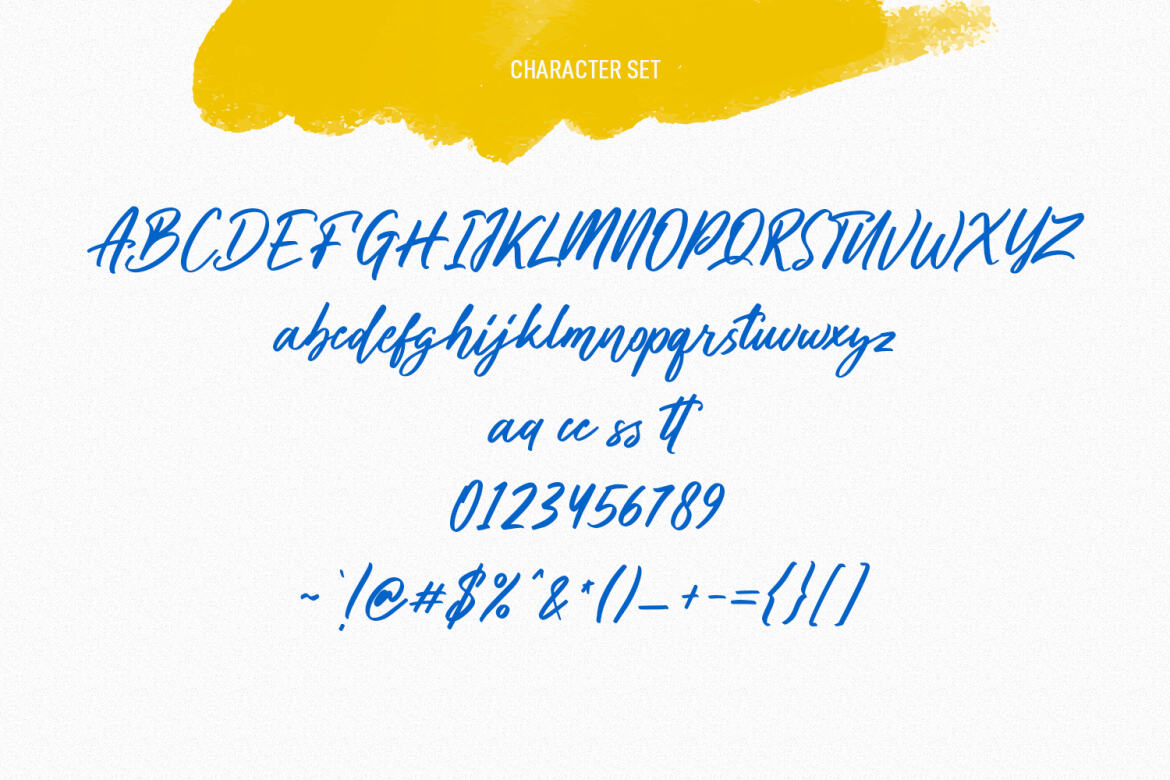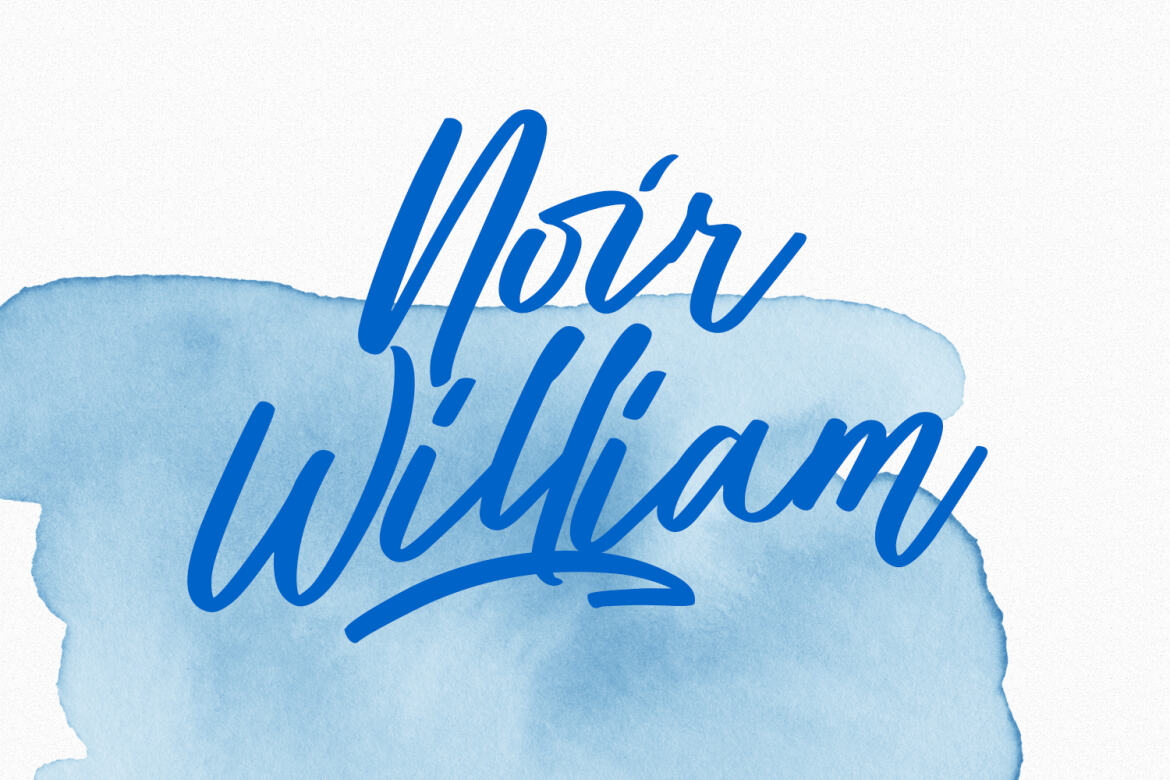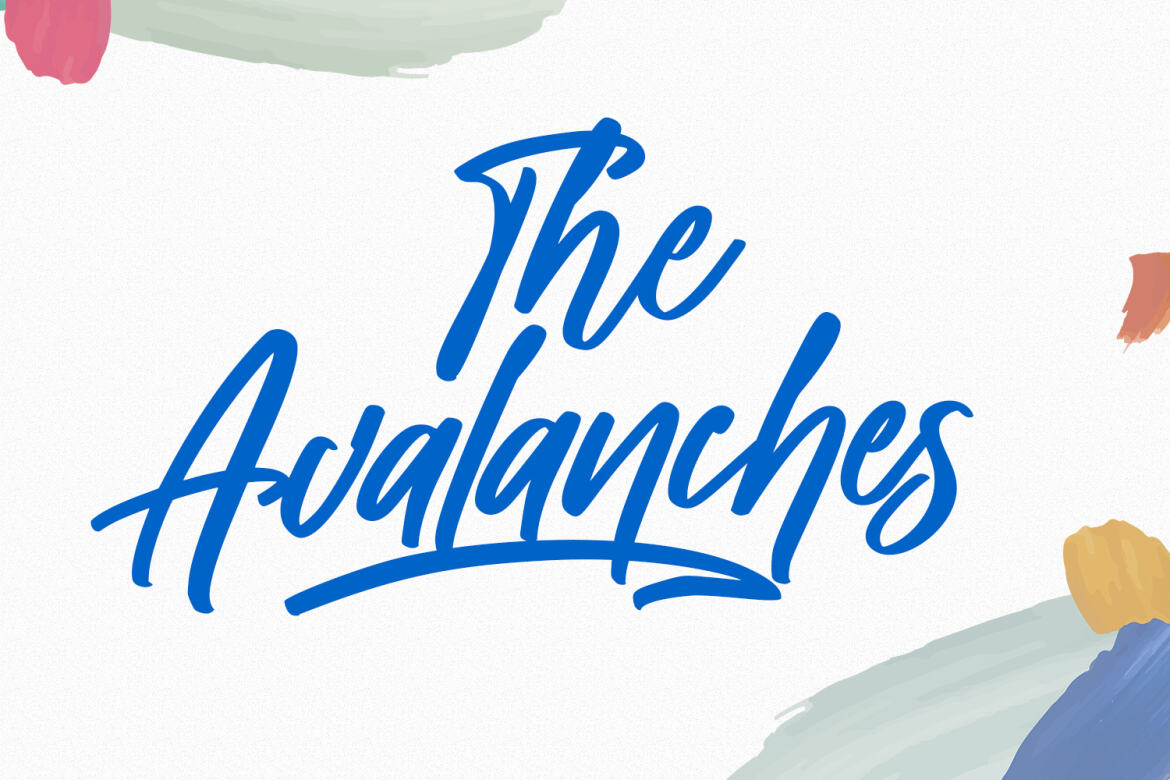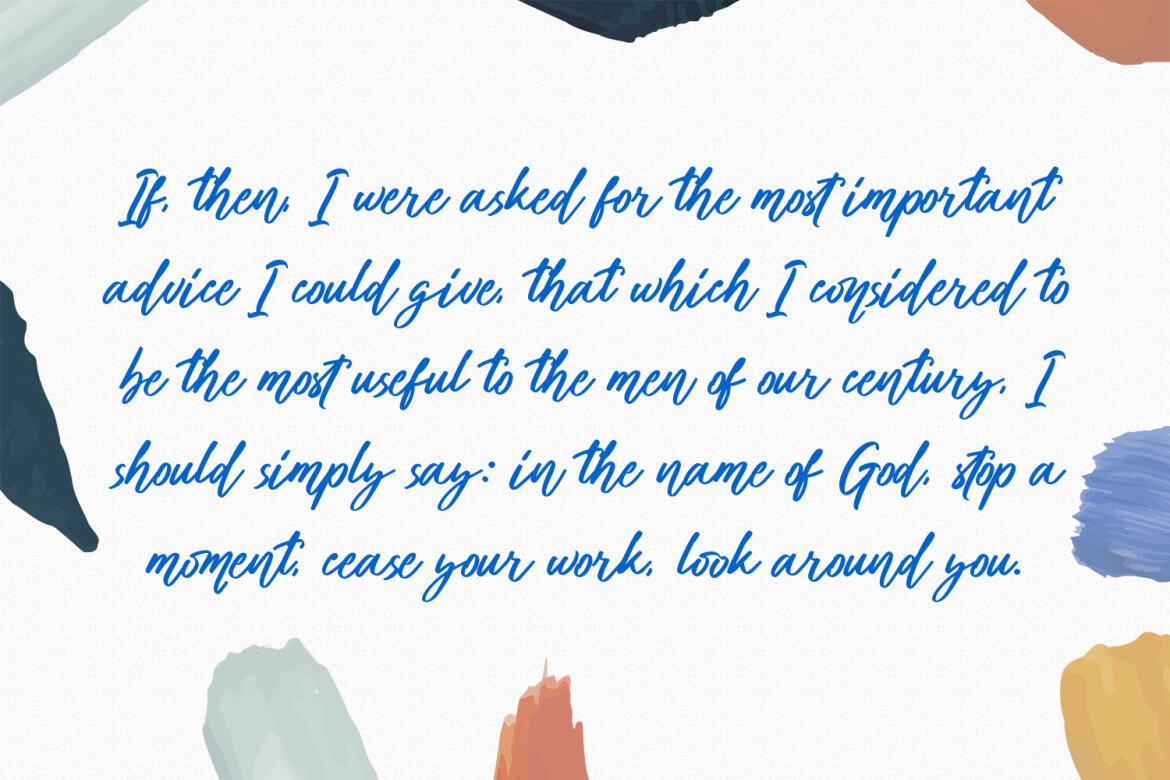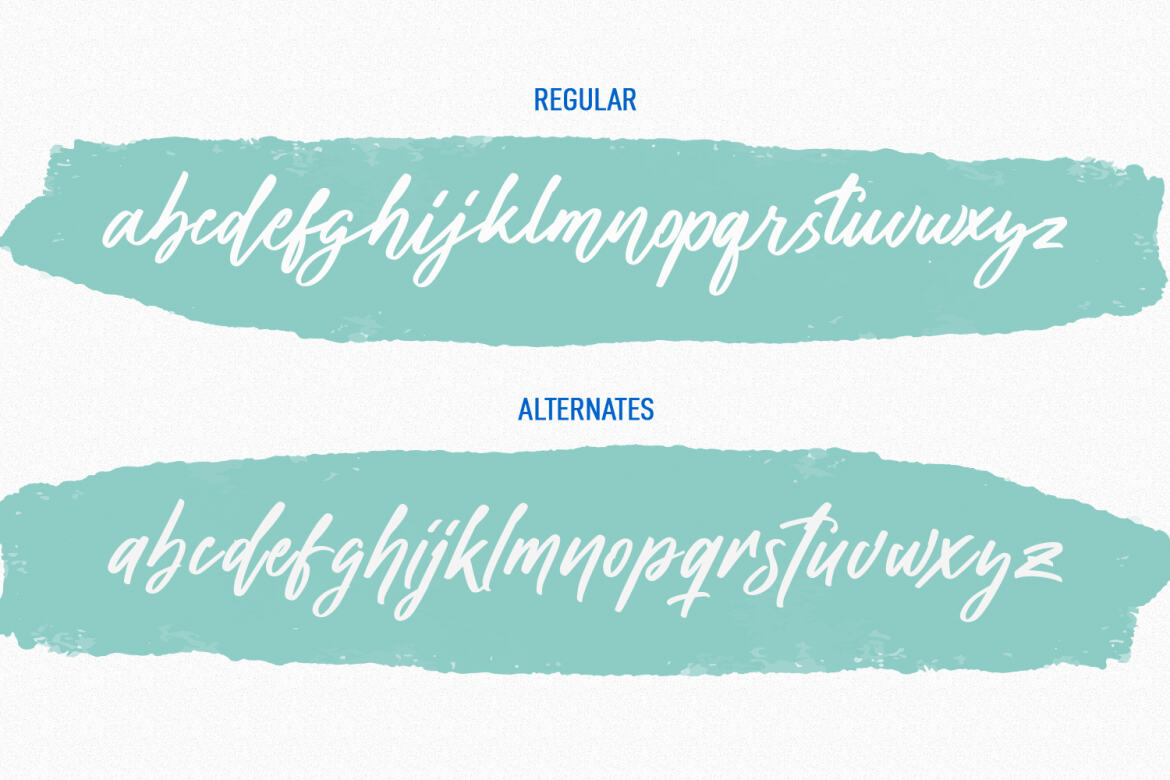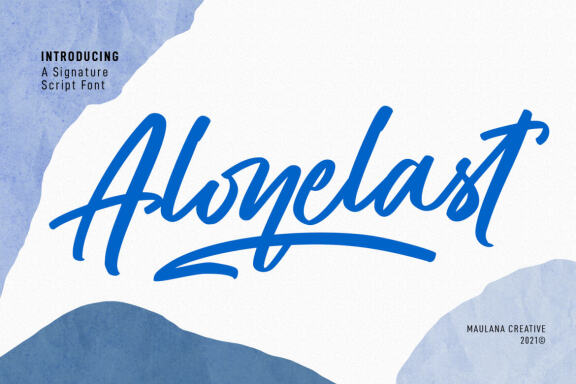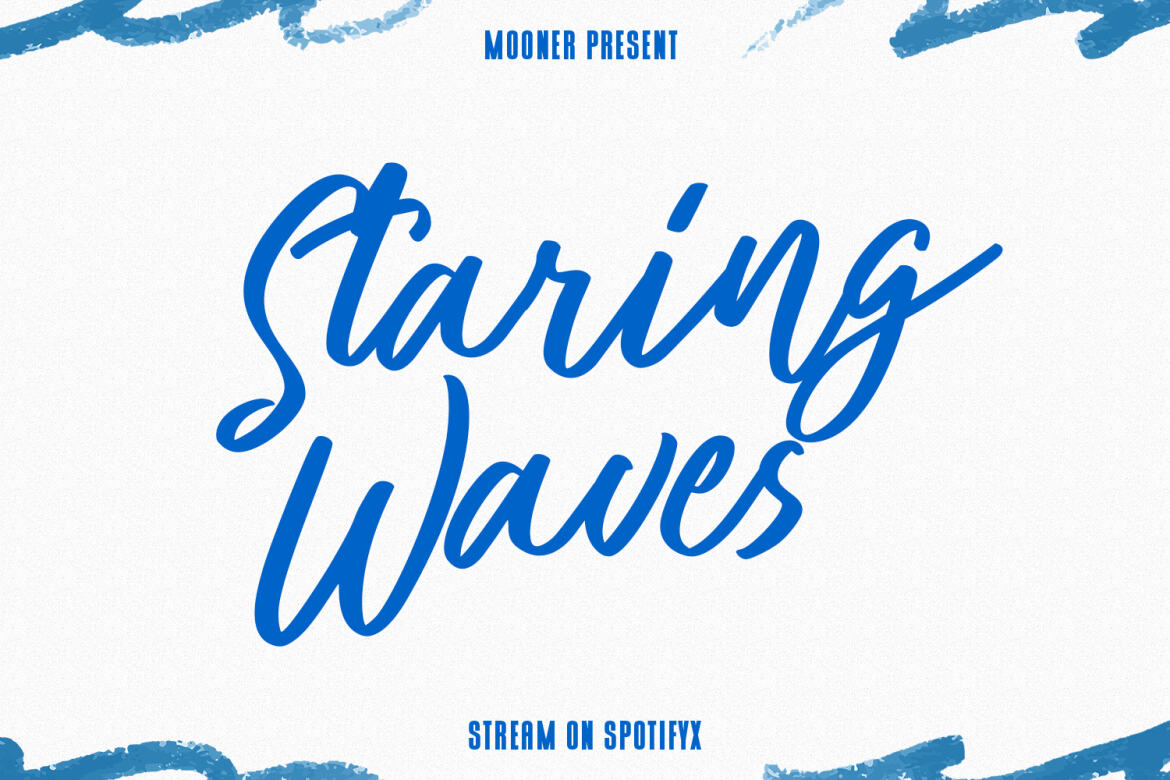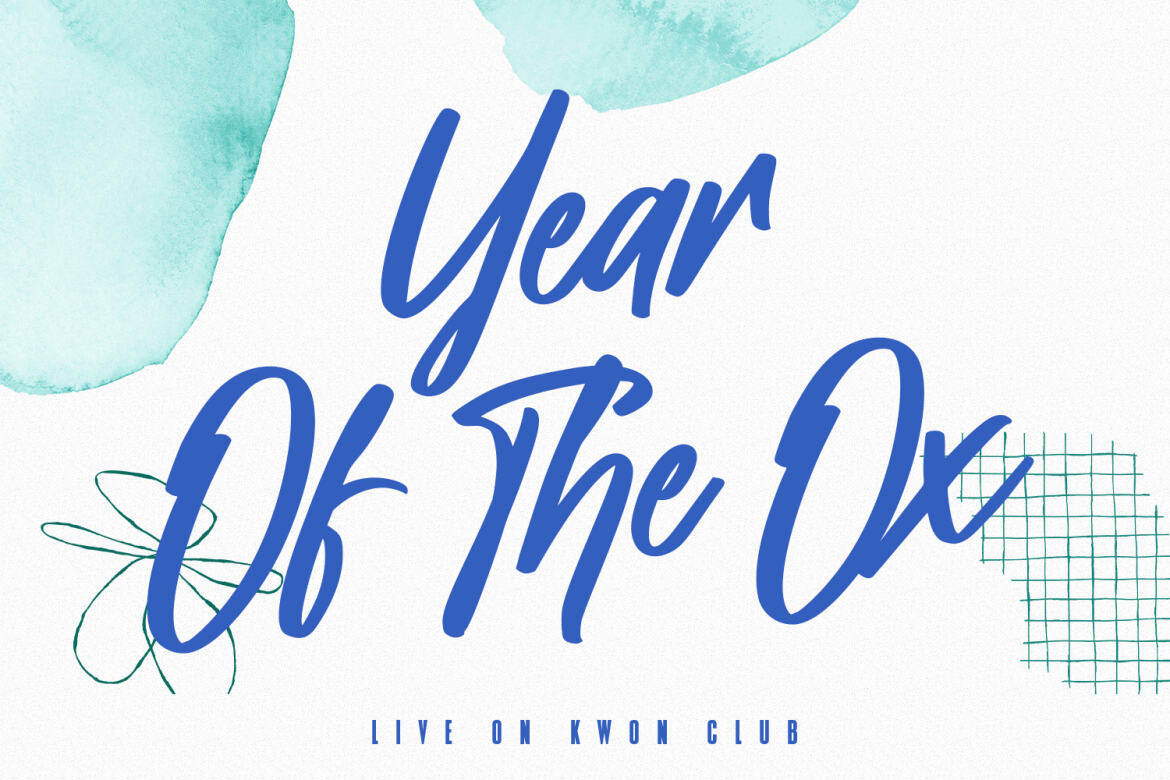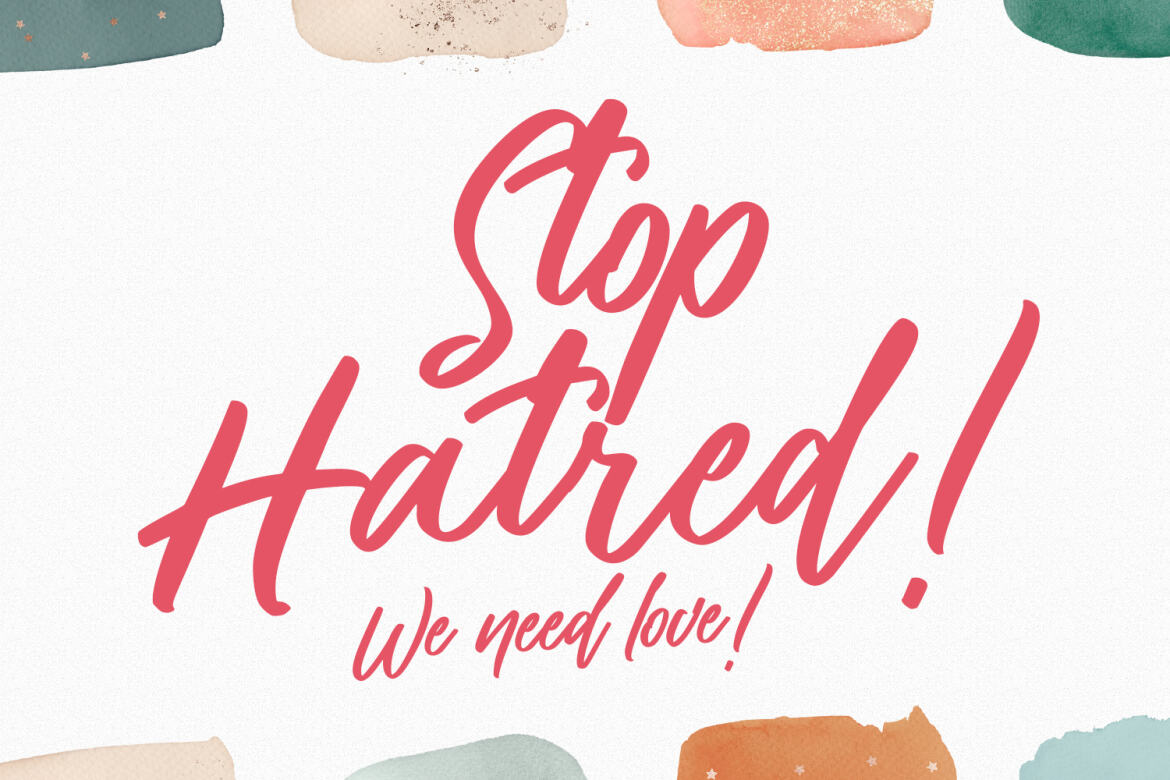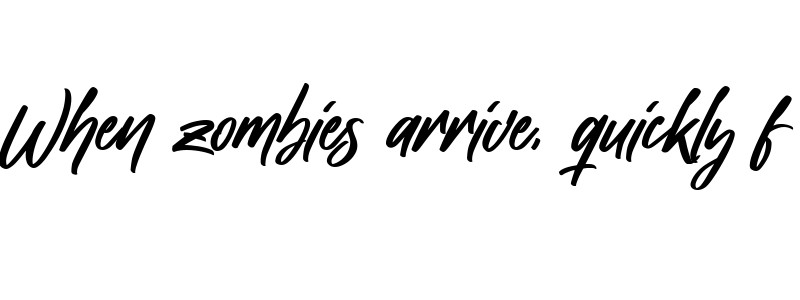
Alonelast Signature FREE Script Font
Alonelast is a signature script font. With regular stroke, fun character with a bit of ligatures and has a two files lowercase alternates and swashes. To give you an extra creative work. Alonelast font support multilingual more than 100+ language. This font is good for logo design, Social media, Movie Titles, Books Titles, a short text even a long text letter and good for your secondary text font with sans or serif. Make a stunning work with Alonelast font.